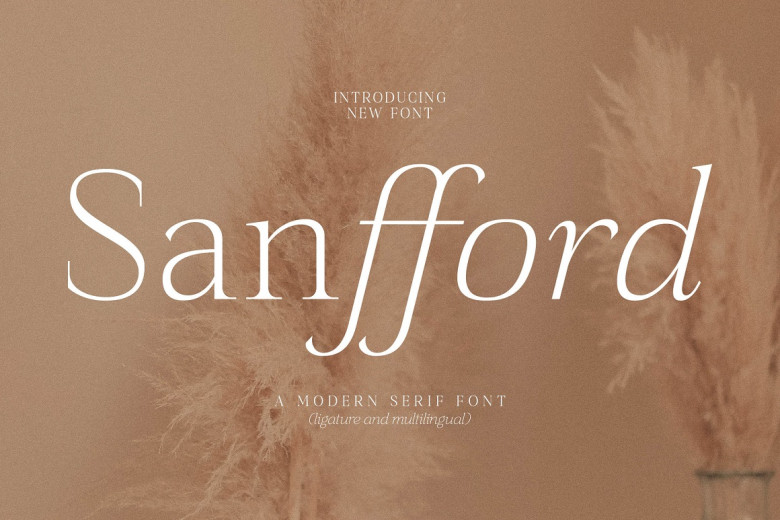
Sanfford Font
Sanfford stands out with its distinctive modernity. Based on classic serif typeface, this font can be used for luxury logo design projects, book and movie titles, clothing letters and quotes – among many other uses.
Sanfford Serif Font